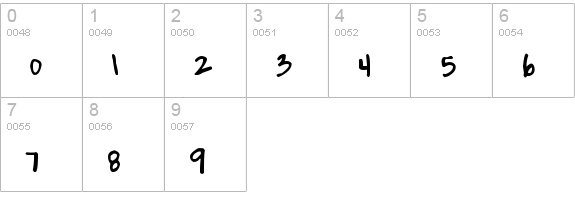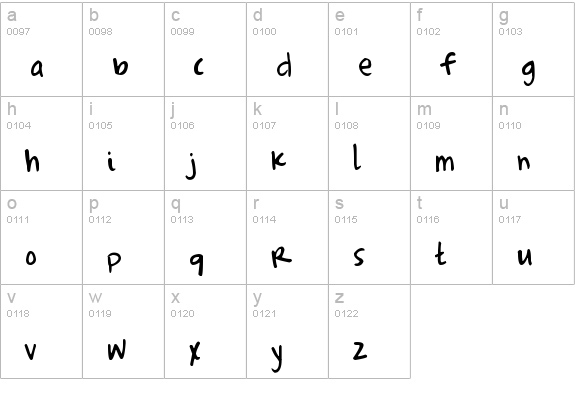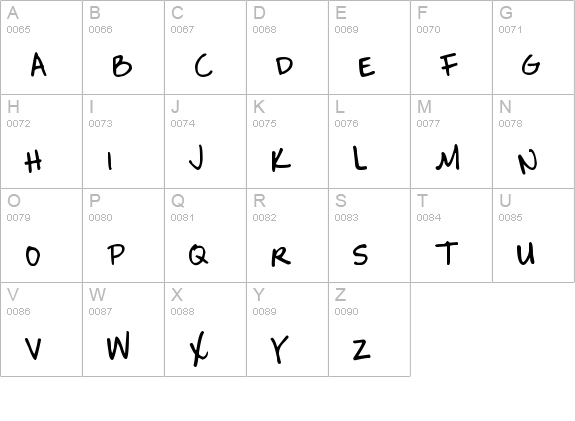
Complete in Him Font Details
Complete in Him font is a beautifully crafted typeface that exudes elegance and sophistication. With its smooth lines and graceful curves, this font is perfect for adding a touch of class to your designs. The timeless appeal of Complete in Him font makes it suitable for a wide range of projects, from invitations to branding. What sets Complete in Him font apart is not just its aesthetic appeal, but also its versatility. Whether you are designing a wedding invitation or a logo for your business, this font will effortlessly elevate your project to the next level. The clean and modern look of Complete in Him font is sure to make a lasting impression on your audience. And the best part? Complete in Him font is available for free download at FontsMarket.com. So you can easily add this stunning font to your collection without breaking the bank. Don't miss out on the opportunity to enhance your designs with the timeless beauty of Complete in Him font. Download it today and let your creativity shine!